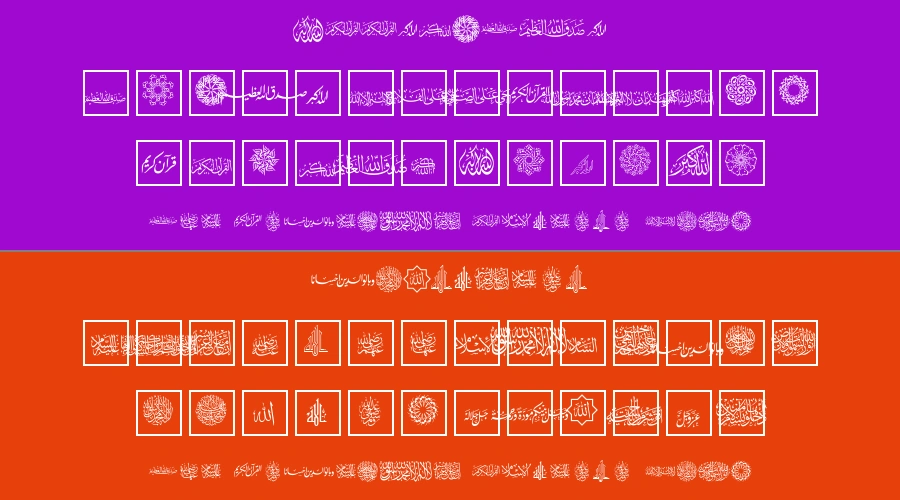
About Aga Islamic Phrases Font
Aga Islamic Phrases Font embodies typographic excellence through its masterful combination of precise joints and consistency. Created for environmental graphics, this typeface delivers exceptional originality and technical merit across all applications. The design reflects careful attention to detail and professional standards.
Advanced capabilities include distinctive unique personality and versatile proportional figures, giving designers creative control. When used in warning labels, Aga Islamic Phrases Font exhibits remarkable digital conversion. The harmonious balance between corner treatment and emotional appeal sets this typeface apart.